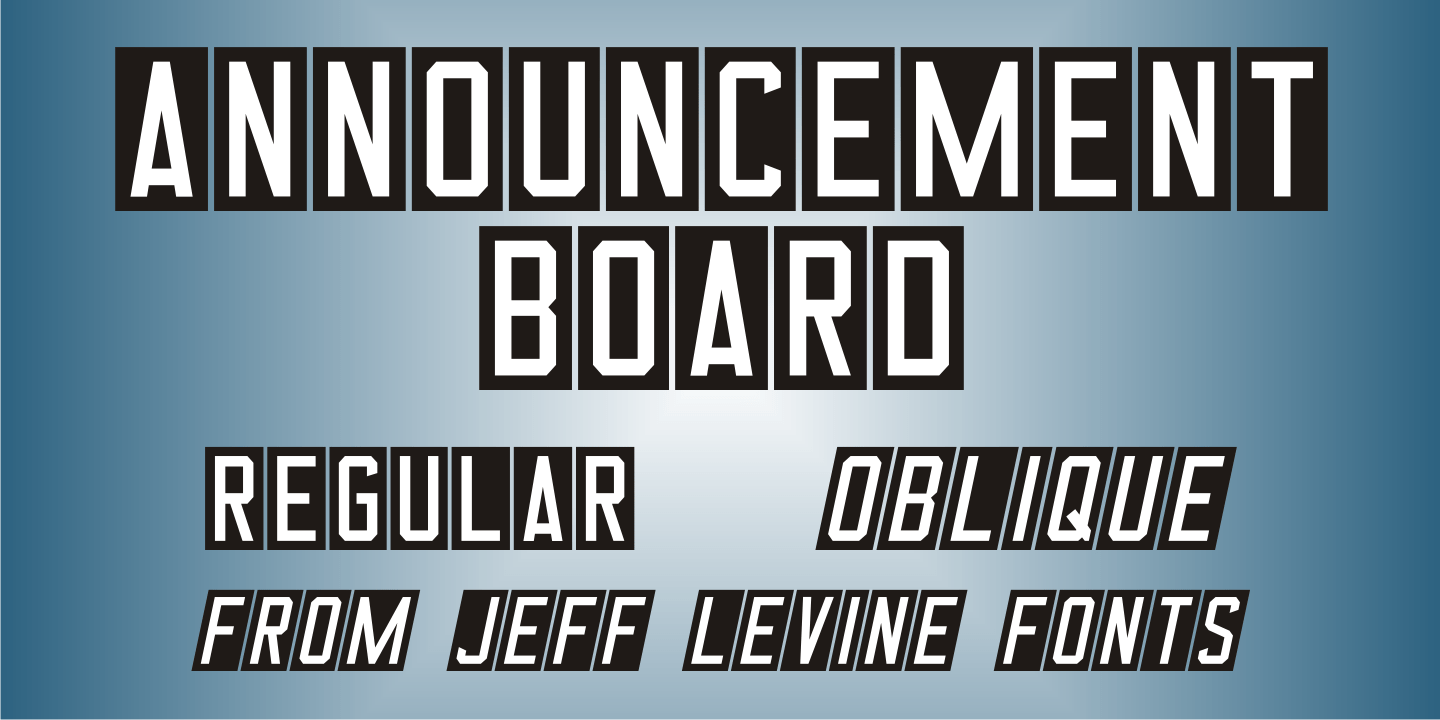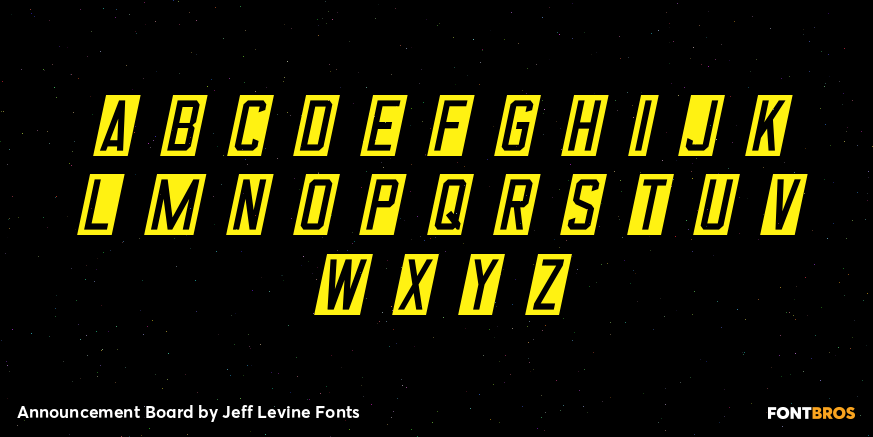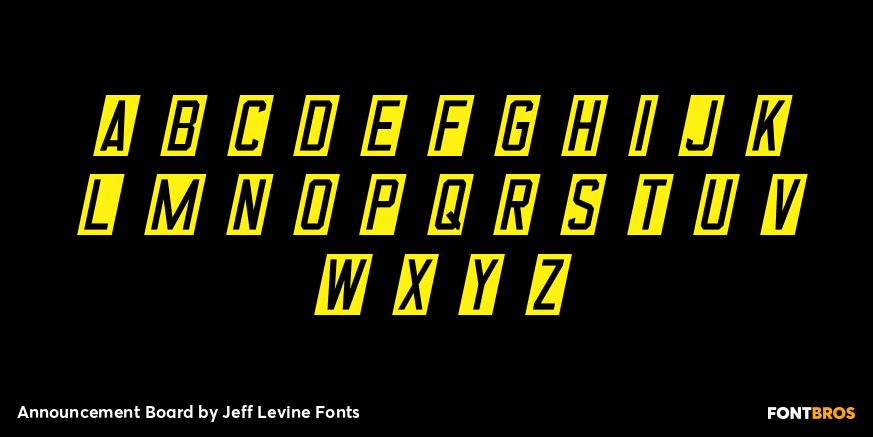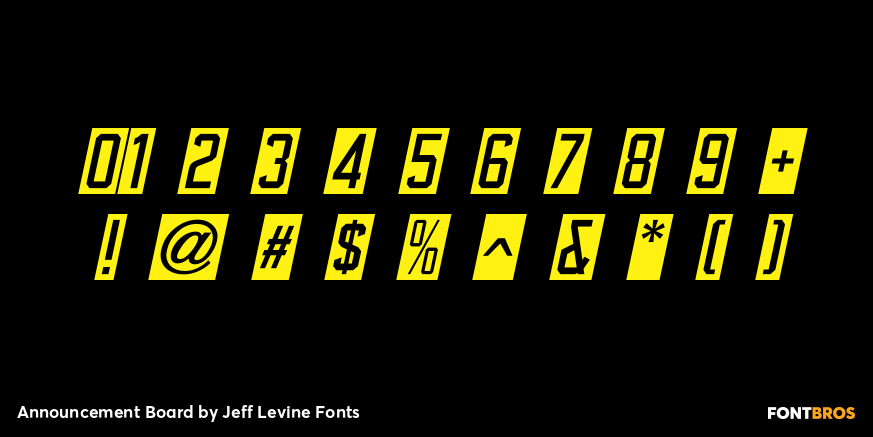
Announcement Board
Many decades back, churches, schools and other buildings with a need to display an outdoor message often chose a sign making system utilizing characters silk screened onto metal pieces in a block chamfer style.
Each piece had a crimp in the top of the metal which formed a hook to fit over the existing rails of a message panel. This allowed for a finished sign to be displayed within minutes, and a quick change of information was not very time-consuming.
A popular version of these signs provided white letters and numbers on black backgrounds. This was the model for Announcement Board JNL, which is available in both regular and oblique versions.
There are two different width blank panels on the broken and solid bars for those who wish to kern the letters tight to form a ribbon, however they were designed to have slight spacing in order to emulate the hand assembly of those vintage sign panels.